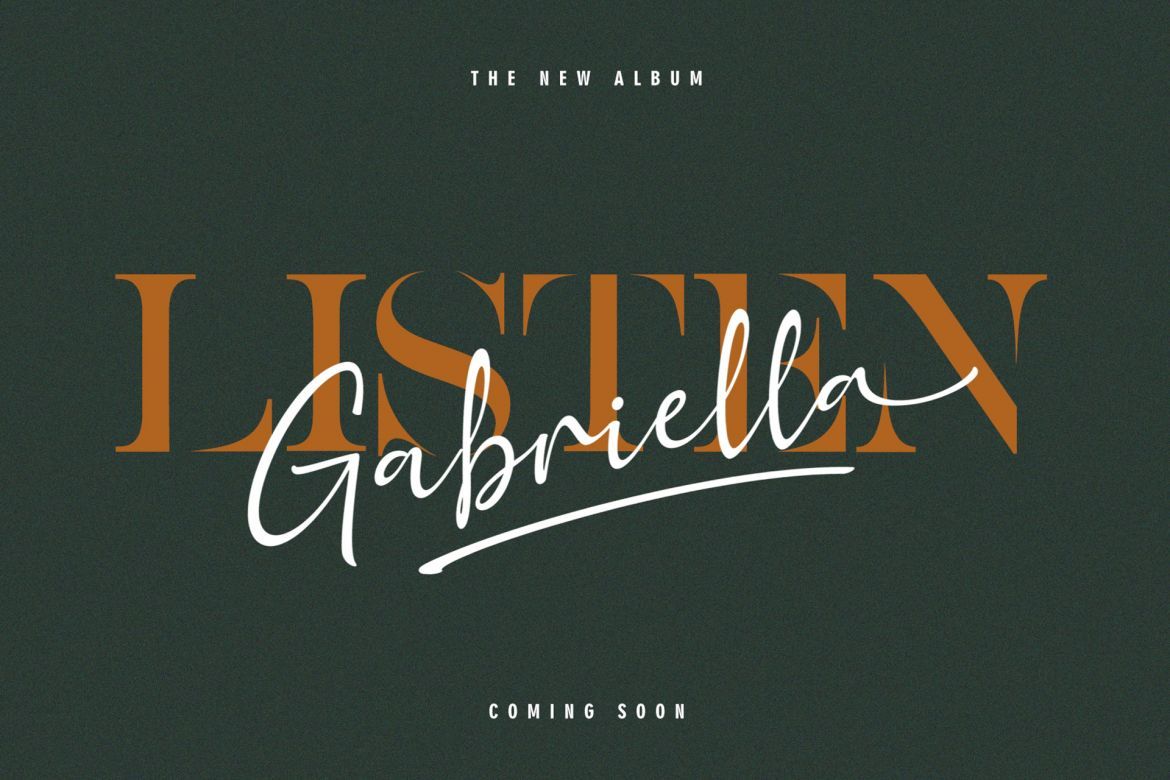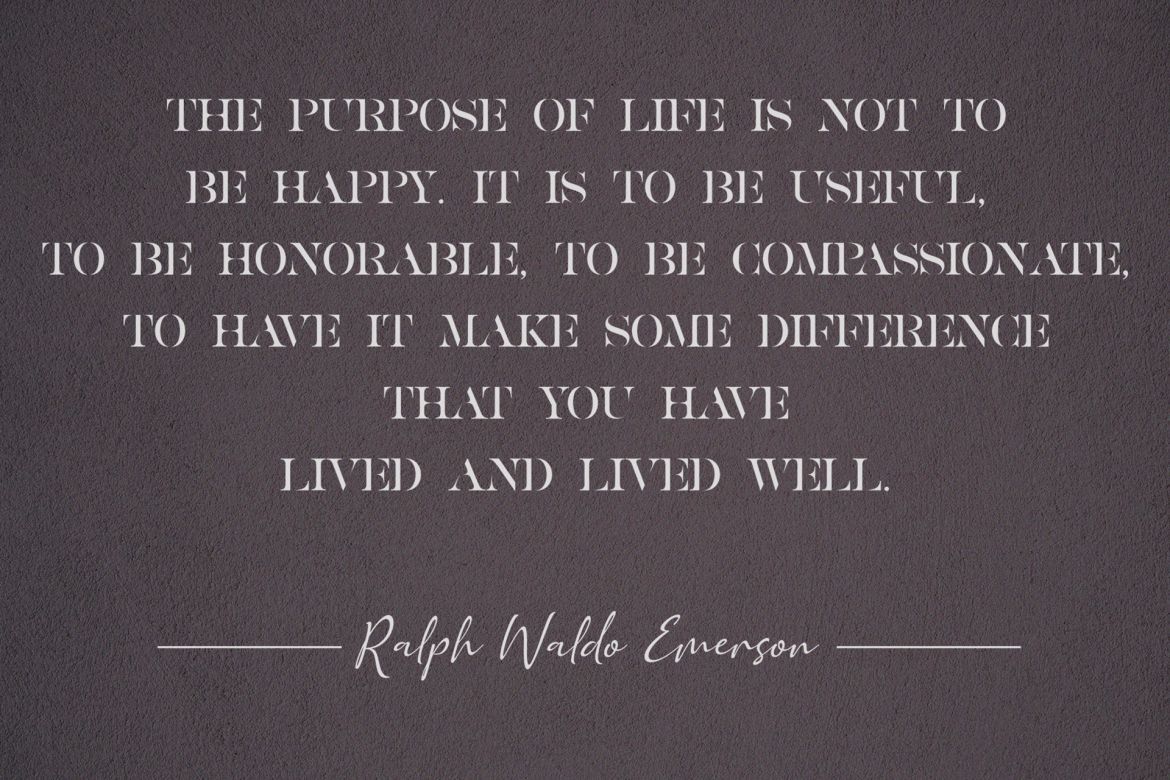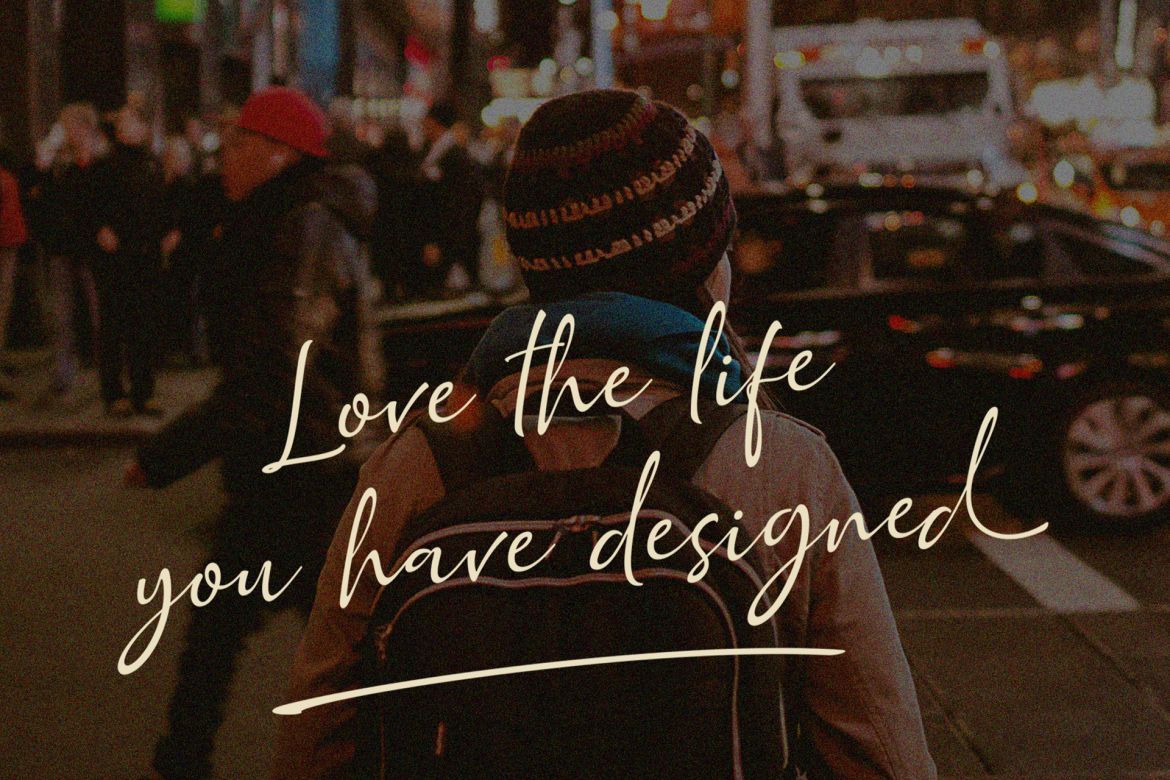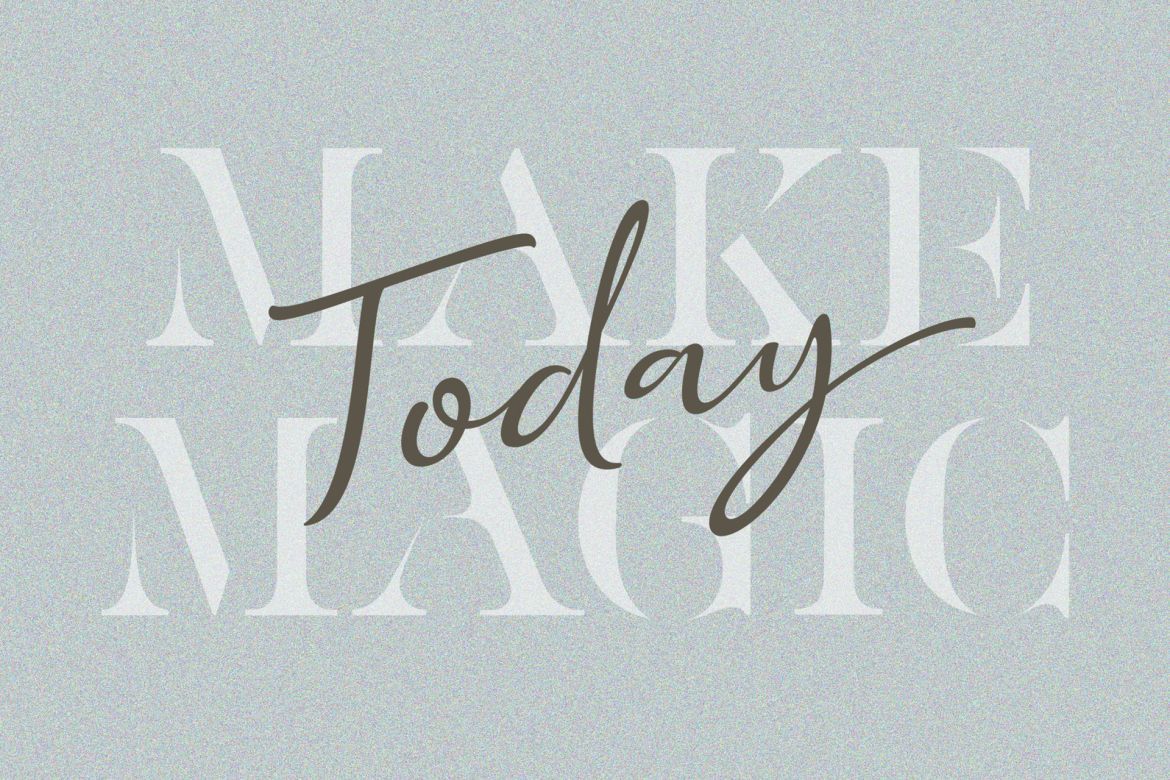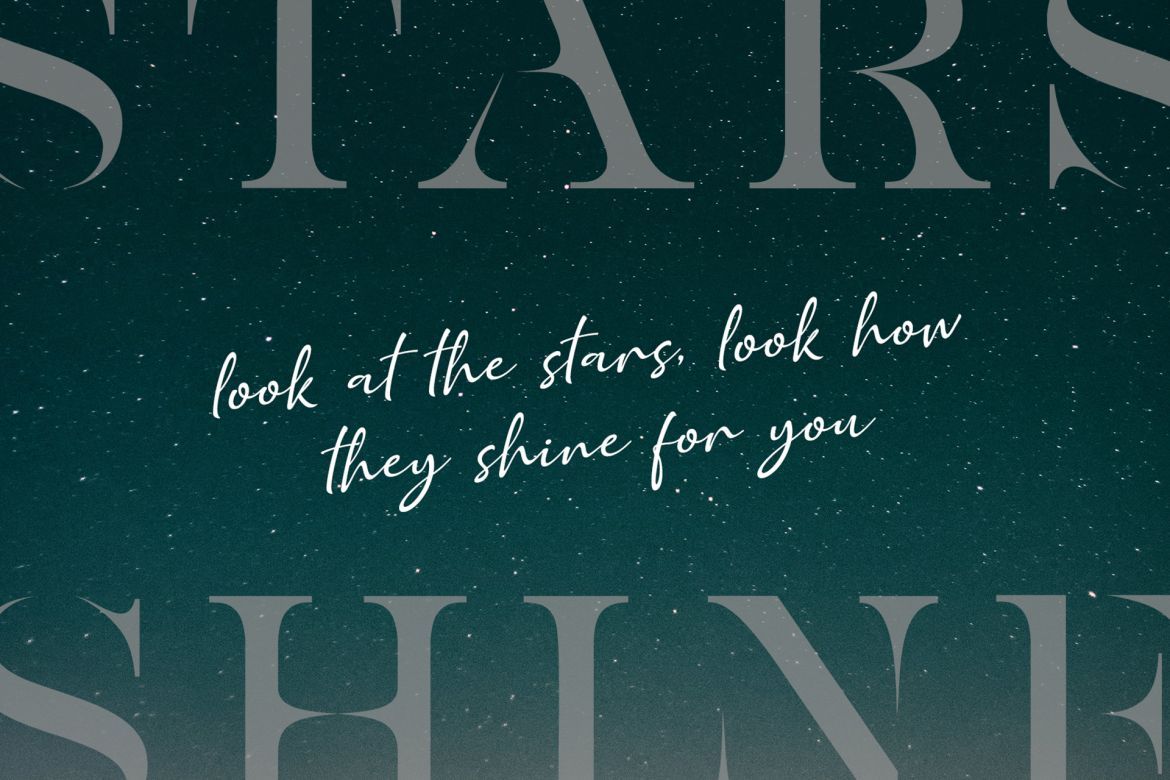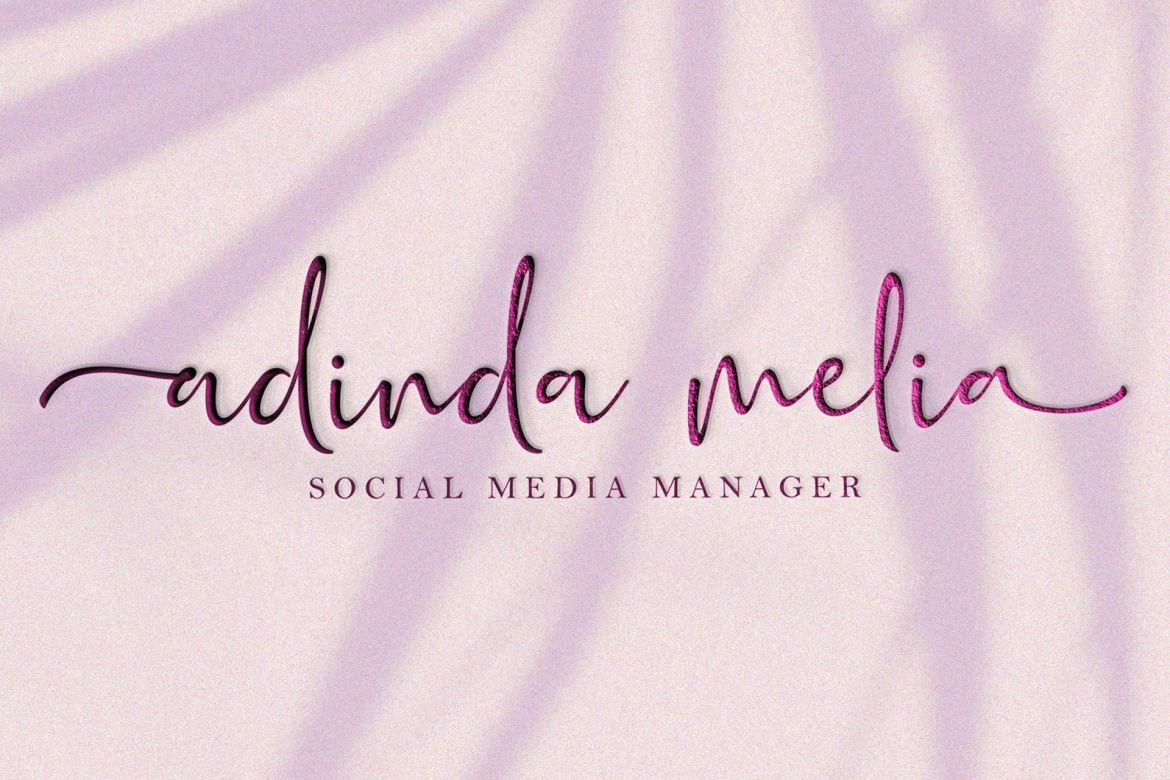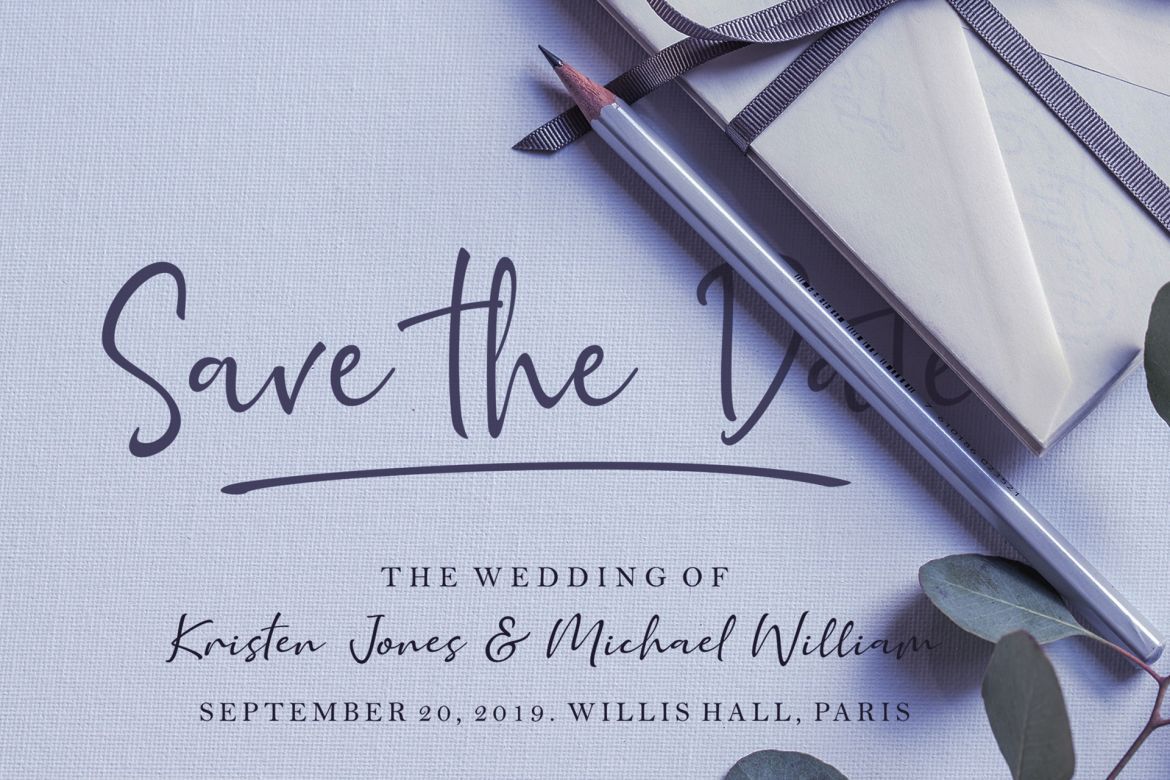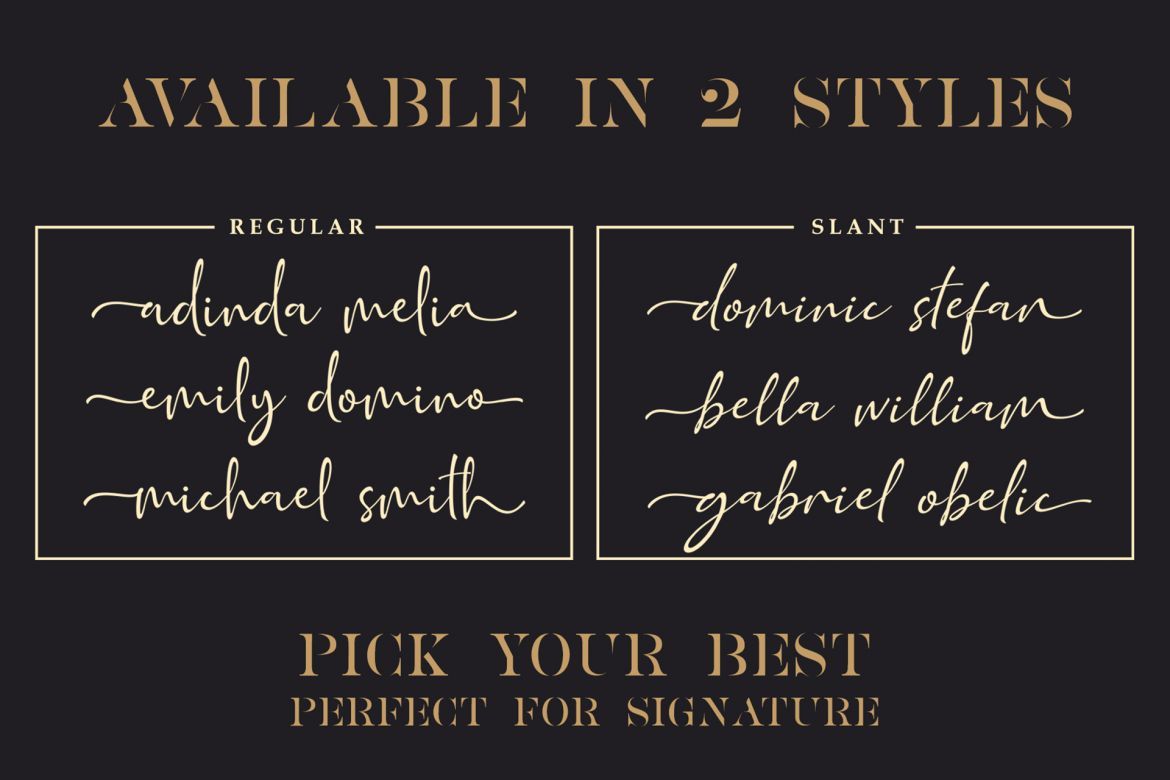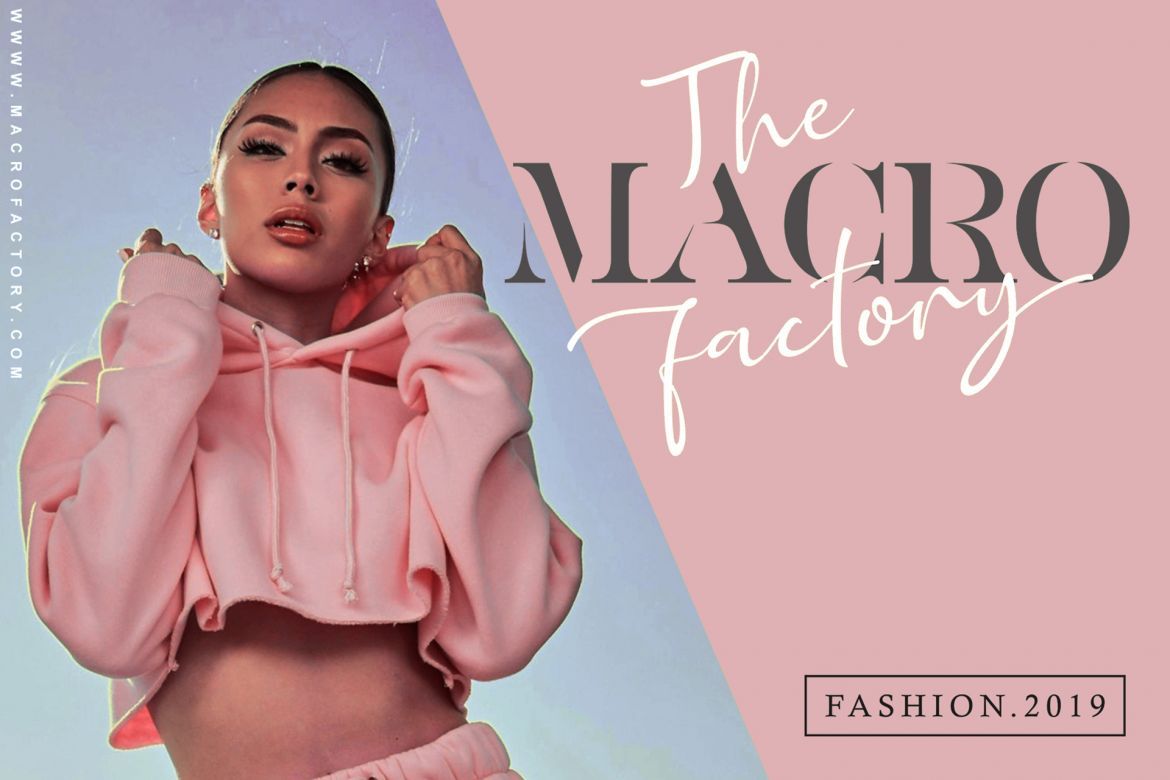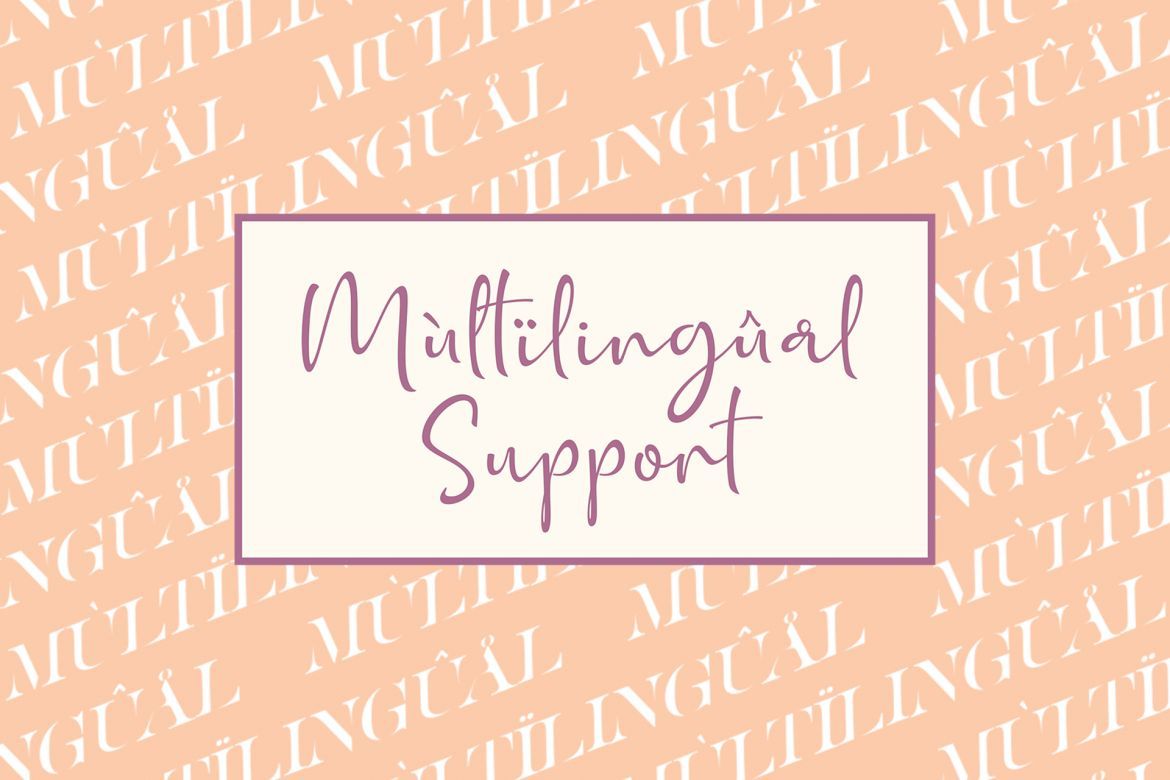
Golden Class Font Duo
Golden Class font duo
hello good people this is my new font..The Golden Class is font duo between serif and modern calligraphy, Golden Class good for logo branding,wedding invitation,typhography wedding,quotes text,magazine,or anything do you want,..
Golden Class Serif **include, numbers, punctuation,alternates, and it also supports other languages :) Golden Class script was built with OpenType features and includes Ligature beginning and ending swashes(lowercase alternate), numbers, punctuation,alternates, and it also supports other languages :)
• each font has stylish handwritten style
• elegant font duo